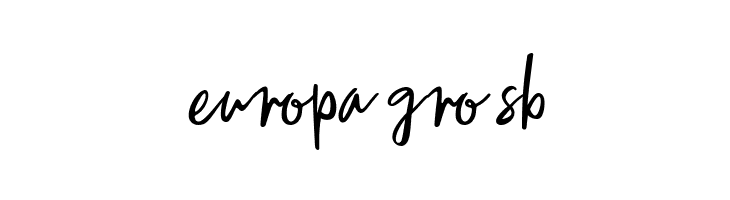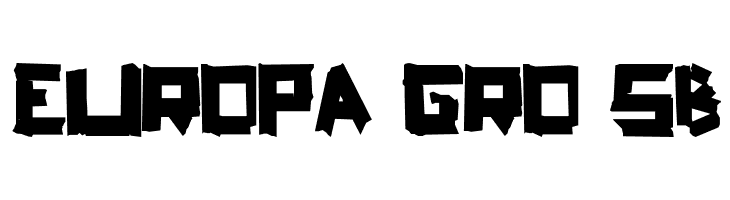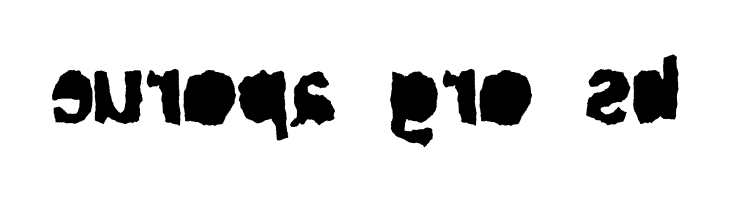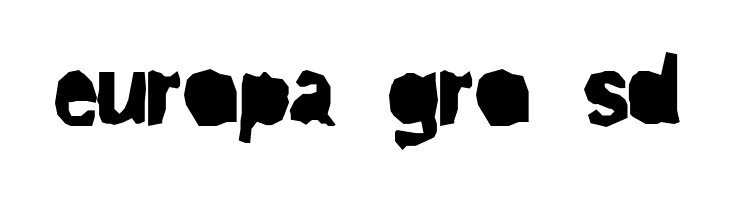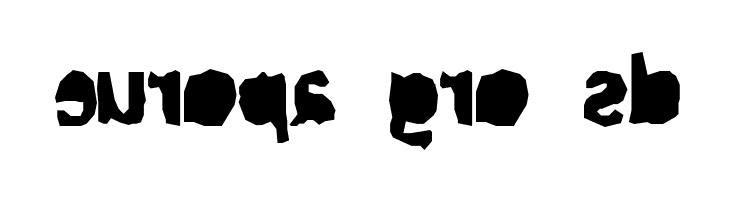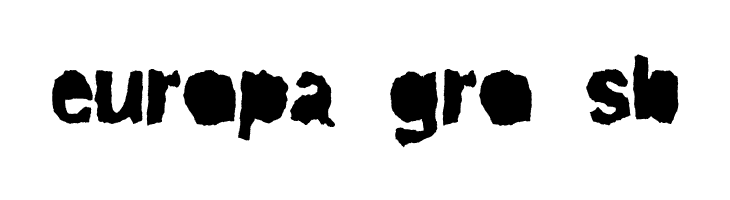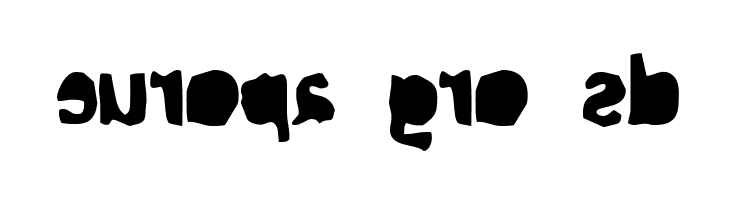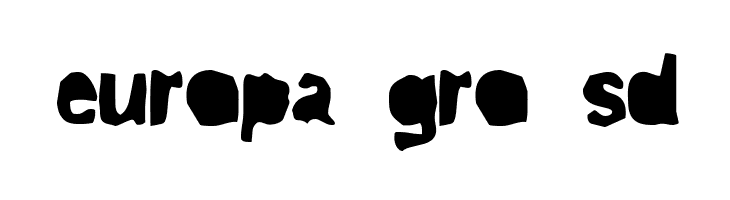
A bold, geometric font with sharp angles and a blocky, stencil-like appearance.
A rugged, distressed font with bold, irregular edges for a raw visual impact.
A bold, distressed font with a rugged, hand-crafted appearance.
A bold, distressed font with irregular, hand-crafted edges.
A bold, playful font with irregular, hand-drawn shapes and a unique, artistic flair.
A bold, playful font with irregular, organic shapes and a hand-cut appearance.
A lively, handwritten font with dynamic strokes and a personal touch.
A lively handwritten font with dynamic strokes and a casual, energetic style.
A bold and dynamic font with thick, curved strokes and a slight slant.